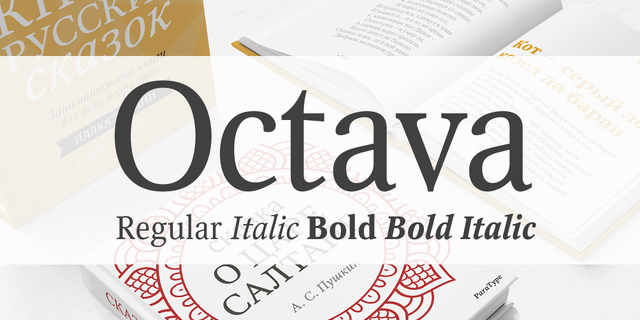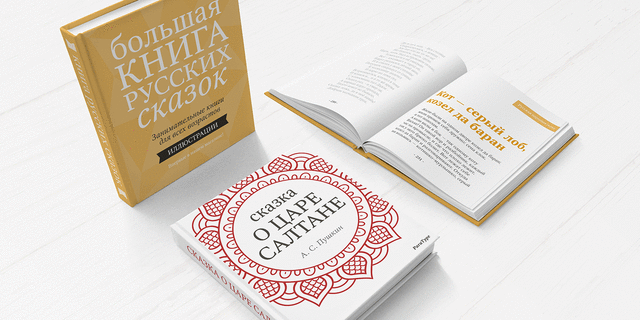
Octava (4 fonts)
Octava is a contemporary variation of Modern Serif typefaces. It was commissioned by the Russian Bible Society and originally released under the name Scriptura Russica in 1996 in three styles -- Book, Italic, Bold and was used for the modern edition of Testimonials in Russain. Lately it was extended by the letters Western alphabets and Bold Italic style was added to the family. Design of Octava was inspired by Lectura (1969) by Dick Dooijes and Stone Print (1991) by Sumner Stone. With it large x-height the typeface is both space saving and quite legible in small sizes. The name Octava means that it was specially designed for the 8 point size setting. All styles include additional set of old style figures and Book style includes small caps. Designed in ParaType in 2001 by Vladimir Yefimov. In 2012 the font was revised and rebuilt with minor additions and corrections.
Associations for font family OctavaTypeface personality and character:
humanitarian, classic, traditional, harmonious, noble, polite, motivating, responsible, important, serious
Typeface exhibits stylistic traits: